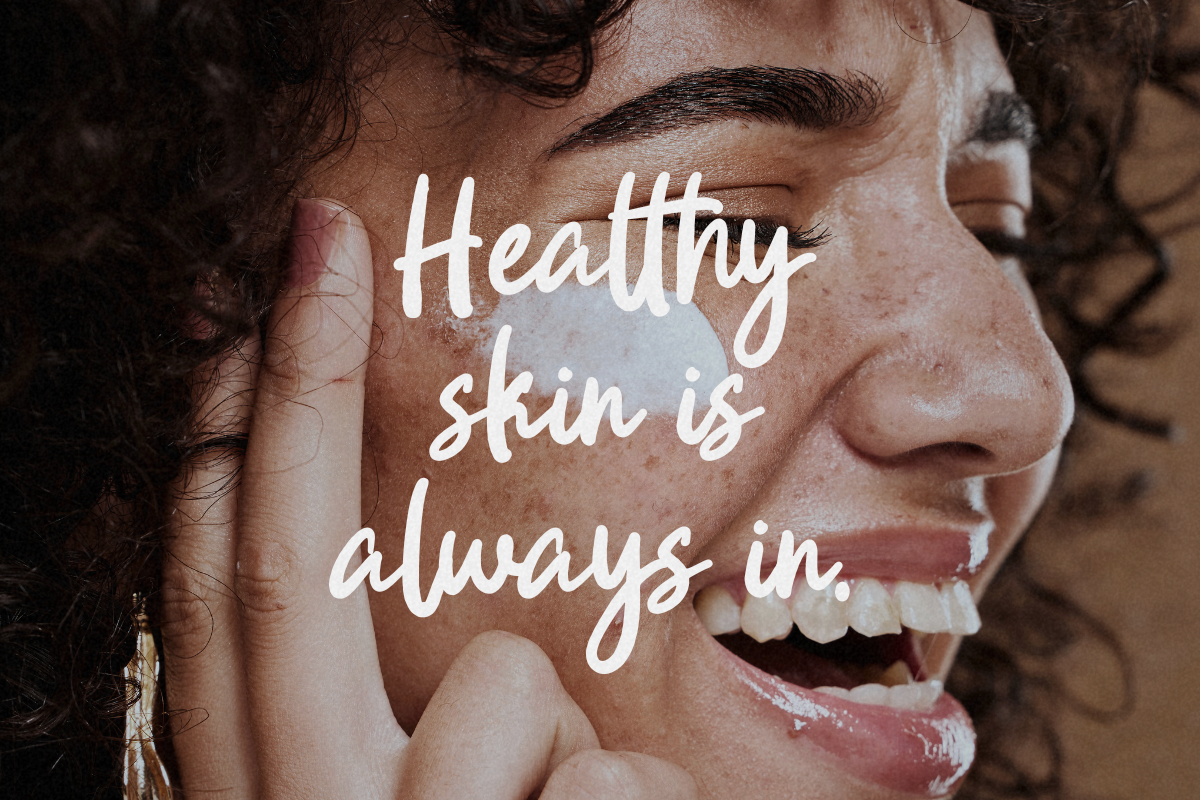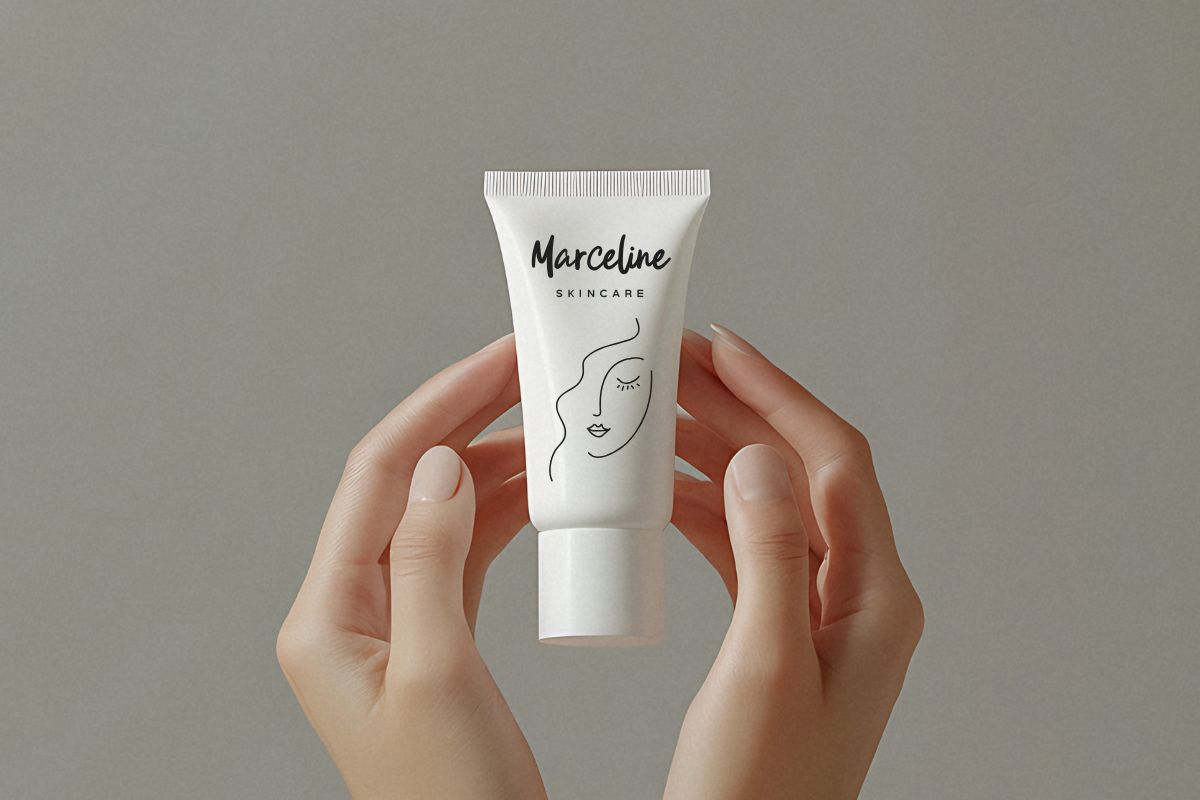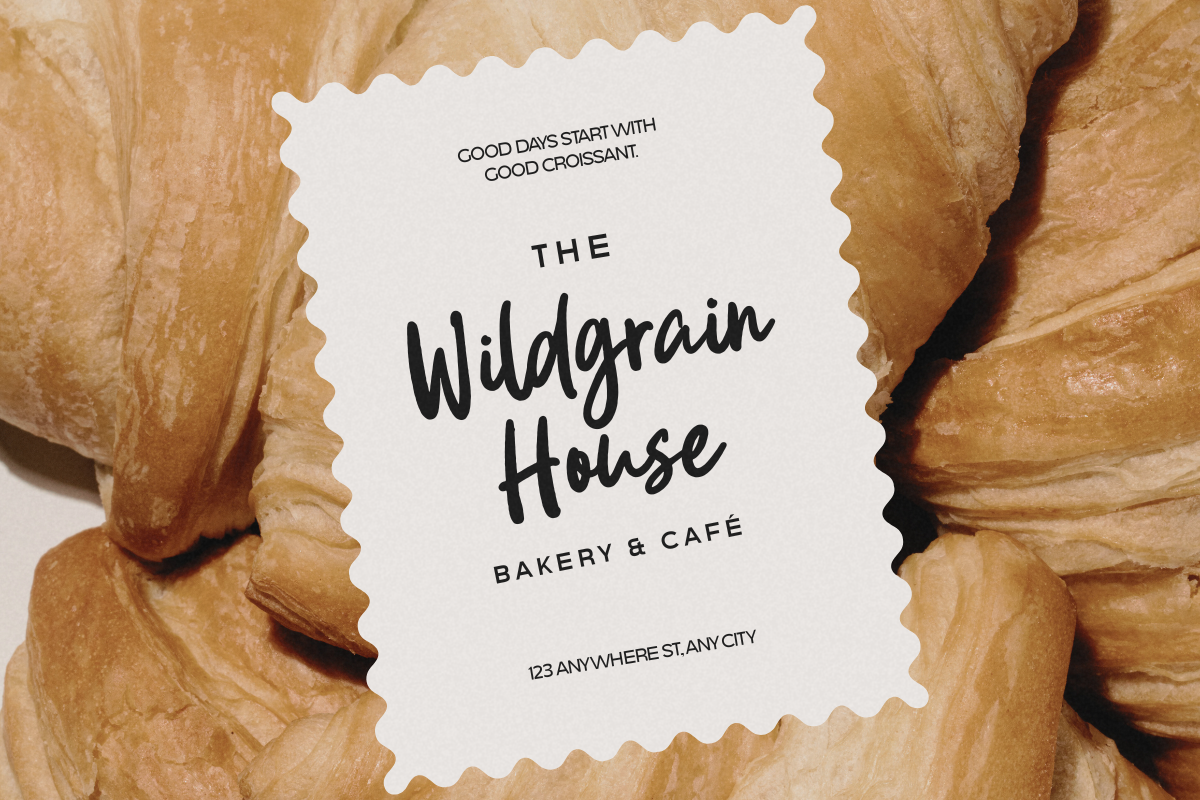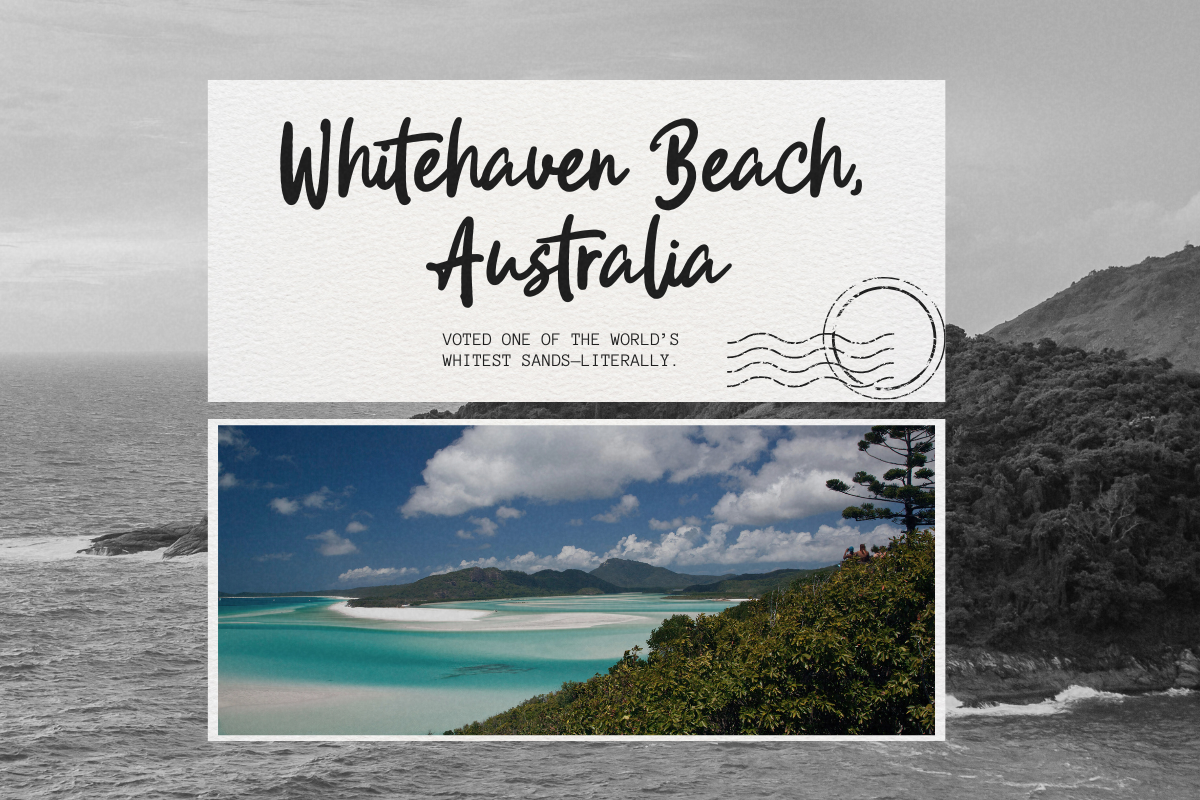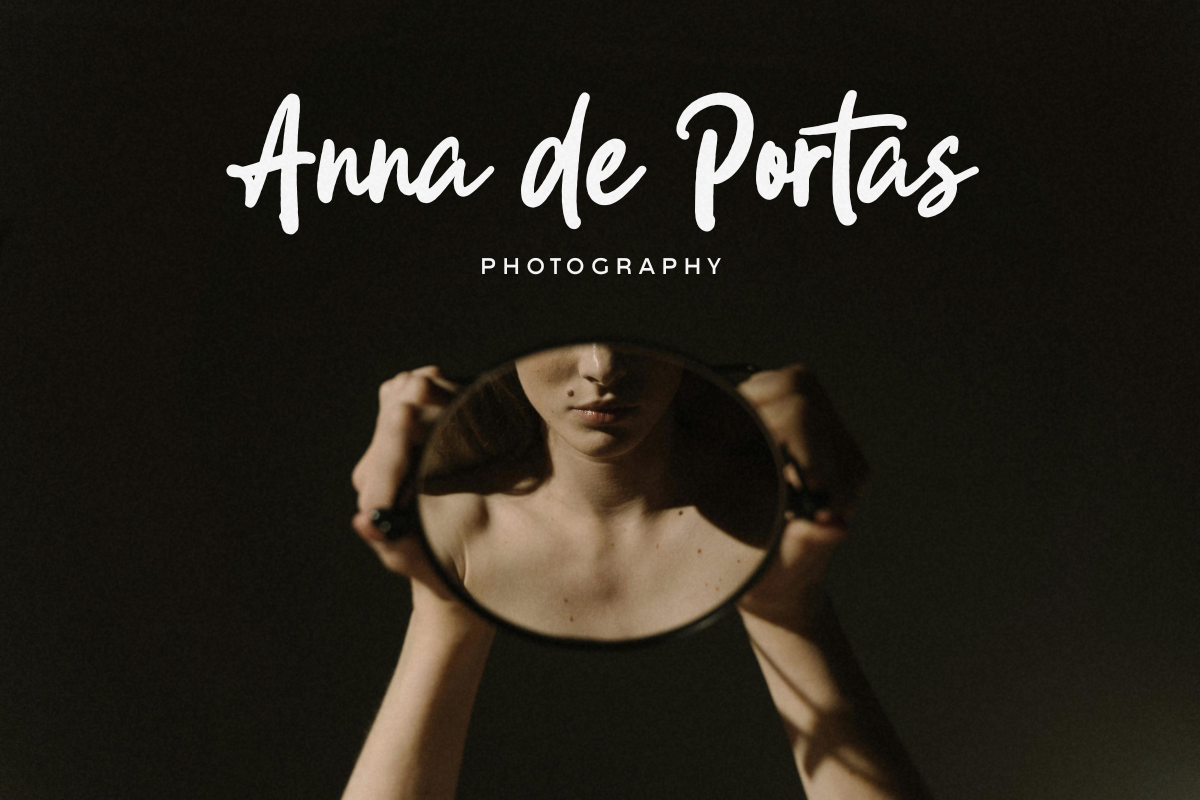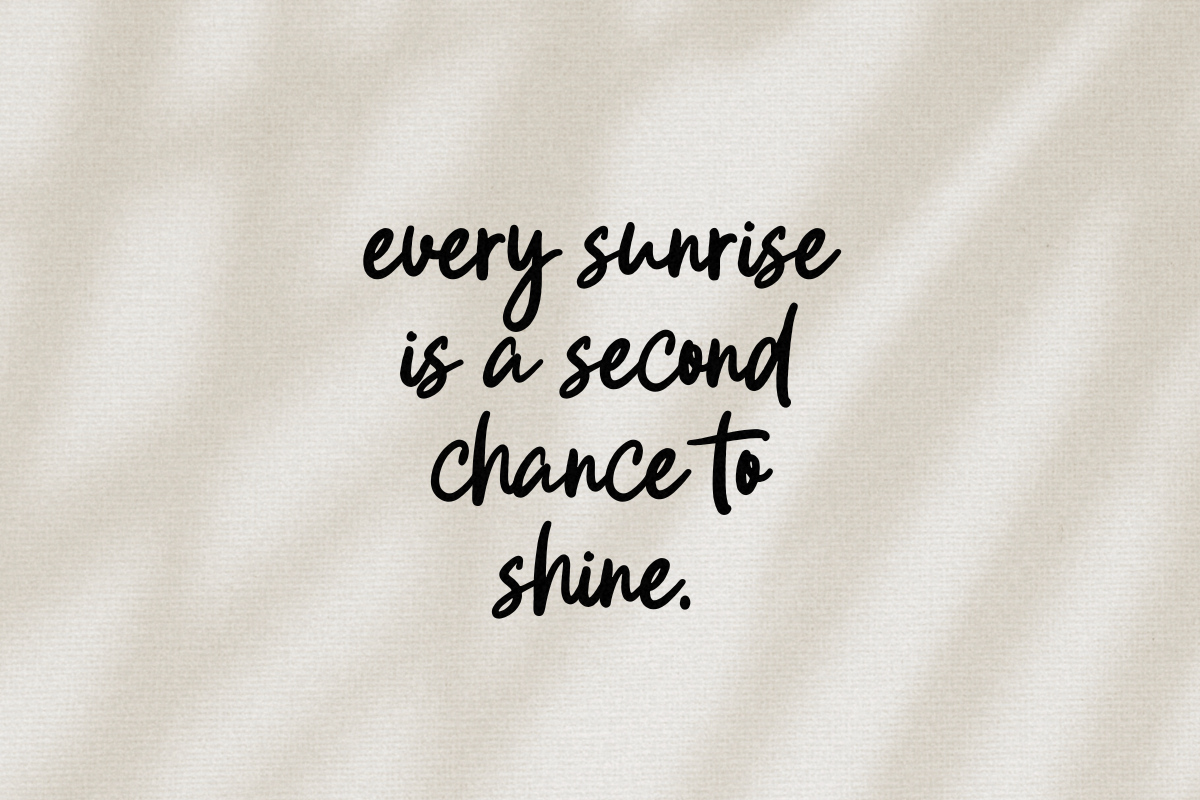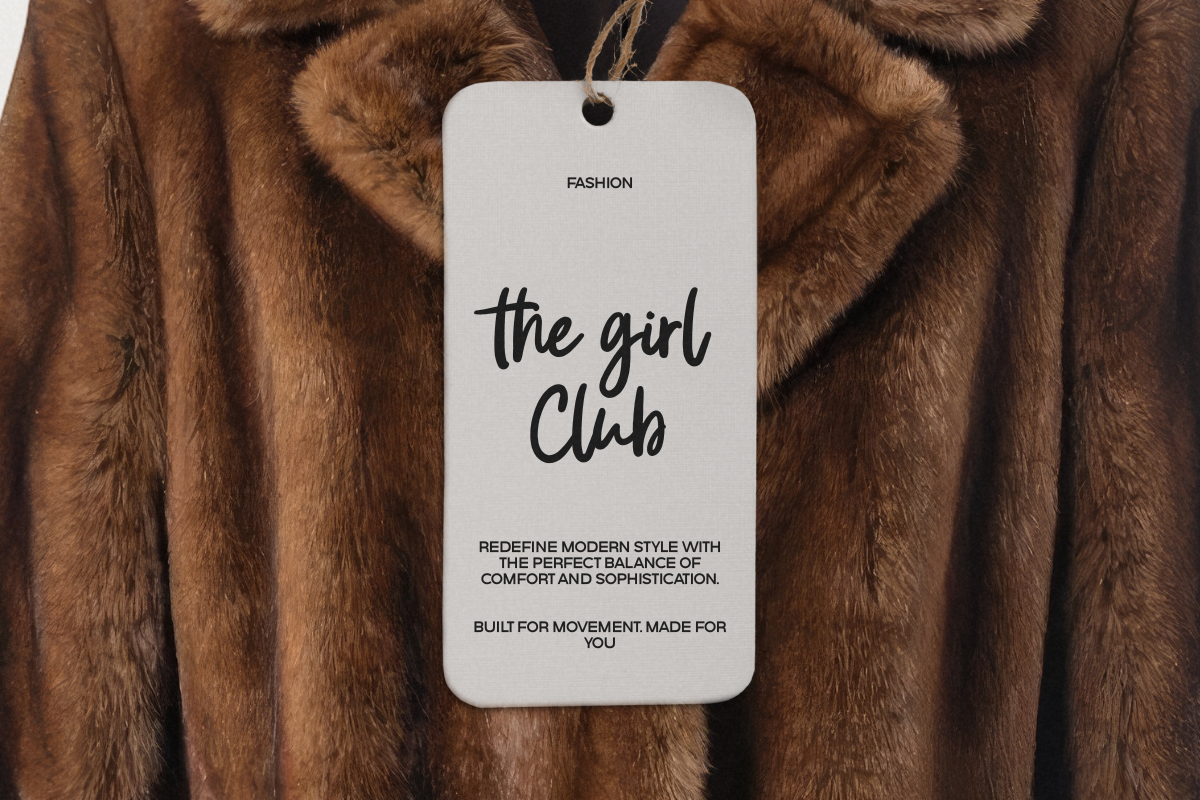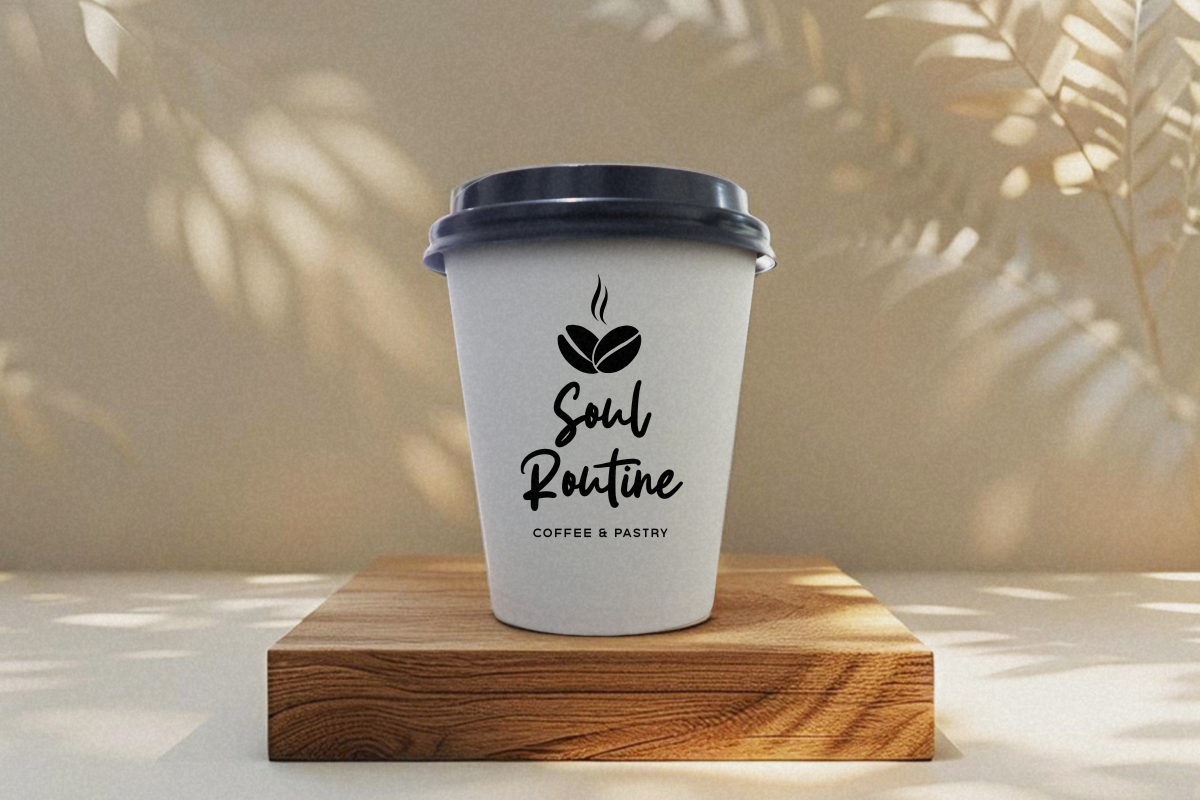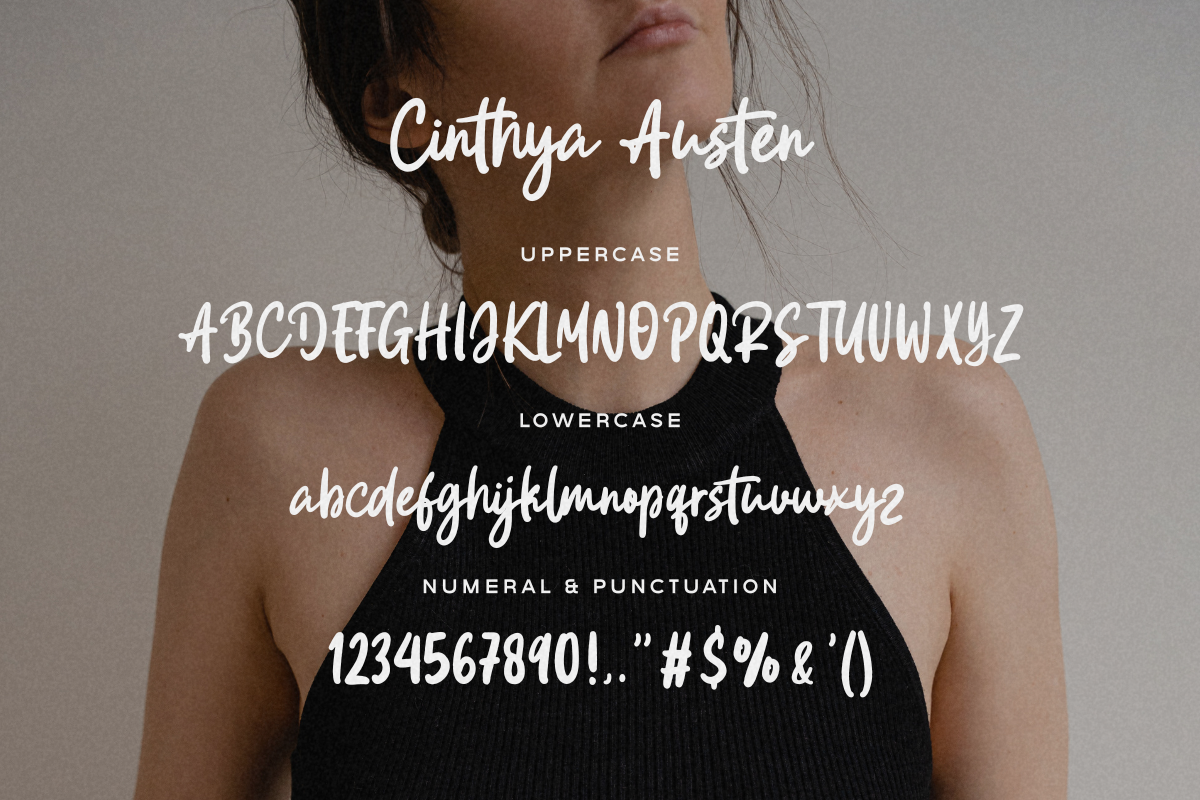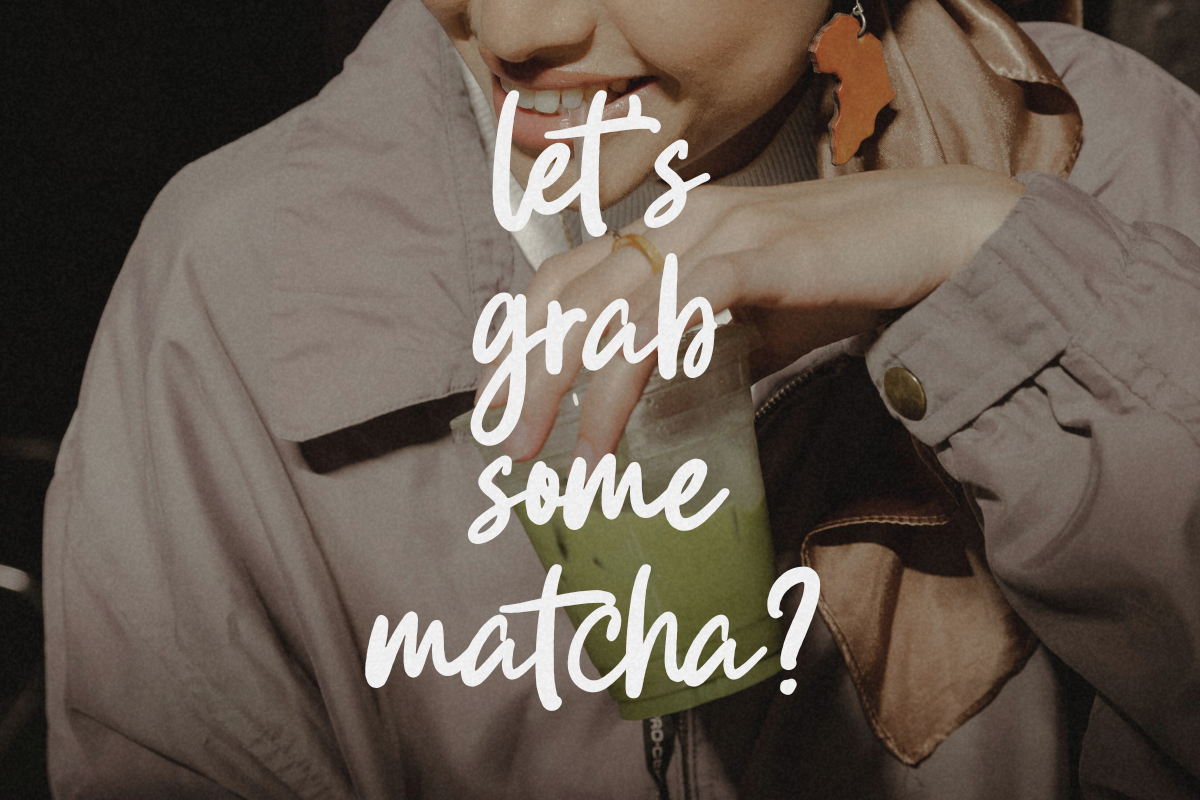
Cinthya Austen – Casual Handwritten
Cinthya Austen is a casual handwritten script font that brings a natural, warm, and personal touch to your designs. Inspired by authentic handwriting, this font delivers smooth strokes, organic curves, and a friendly character—perfect for modern branding and creative projects that need a human feel.
Designed to look effortless yet stylish, Cinthya Austen works beautifully for logos, quotes, social media content, packaging, invitations, fashion branding, and lifestyle designs. Its handwritten script style adds charm and authenticity, making every design feel more personal and expressive.
This font is ideal for designers, small businesses, and creatives who want a handwritten look that feels natural, casual, and easy to read while still maintaining elegance and versatility.
Casual handwritten script style
Natural and smooth handwritten strokes
Clean and readable letterforms
Uppercase & lowercase characters
Numerals and basic punctuation
Works great for both digital and print designs
Logo design
Branding & personal identity
Social media posts & content
Quotes & typography design
Invitations & greeting cards
Packaging & product labels
Fashion, beauty, and lifestyle branding